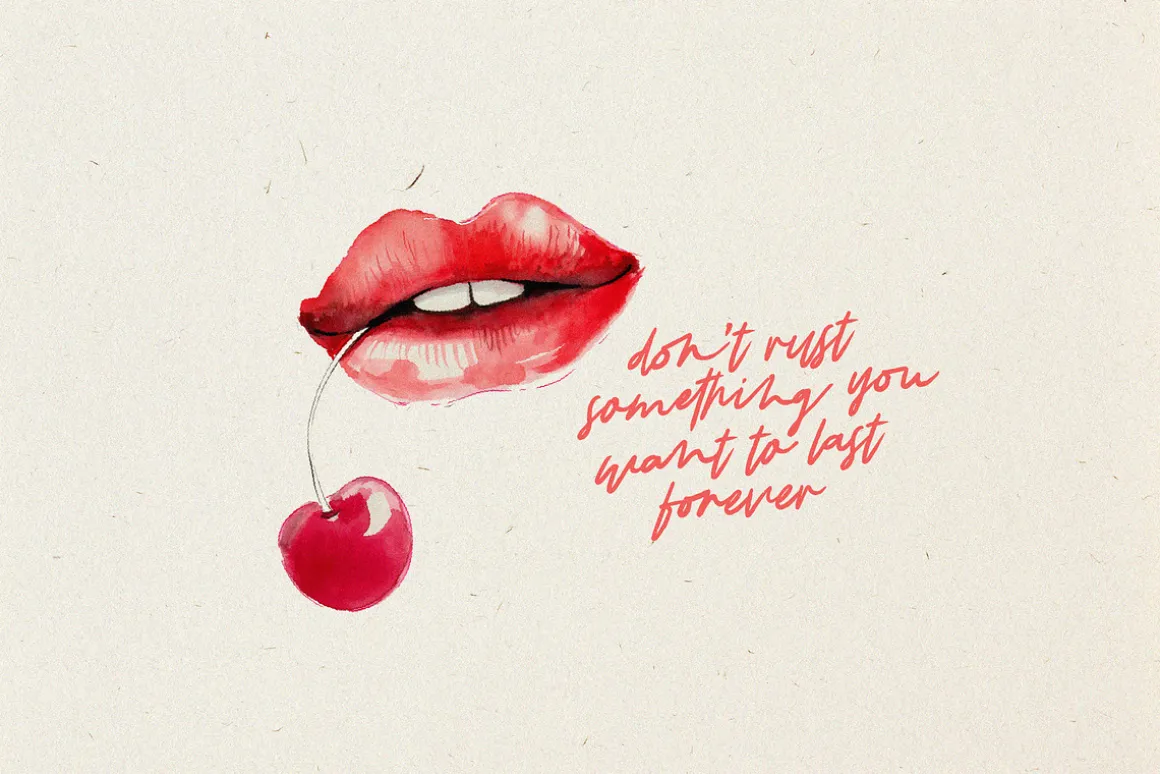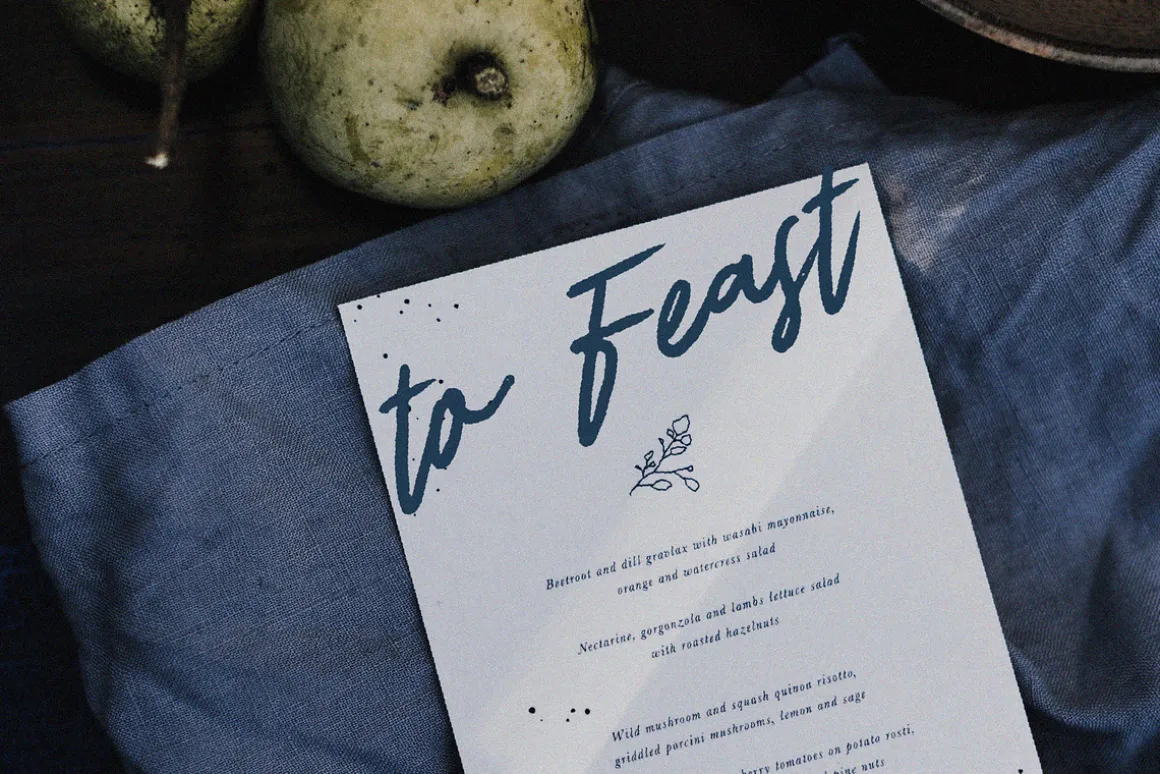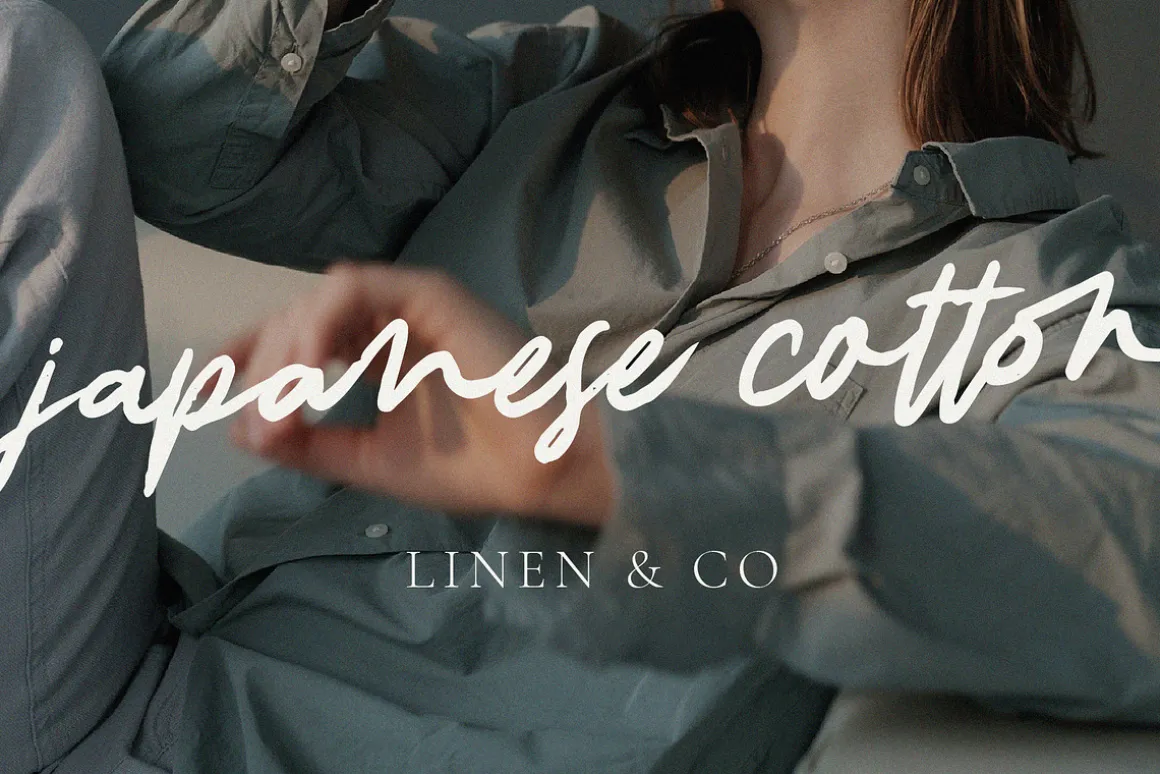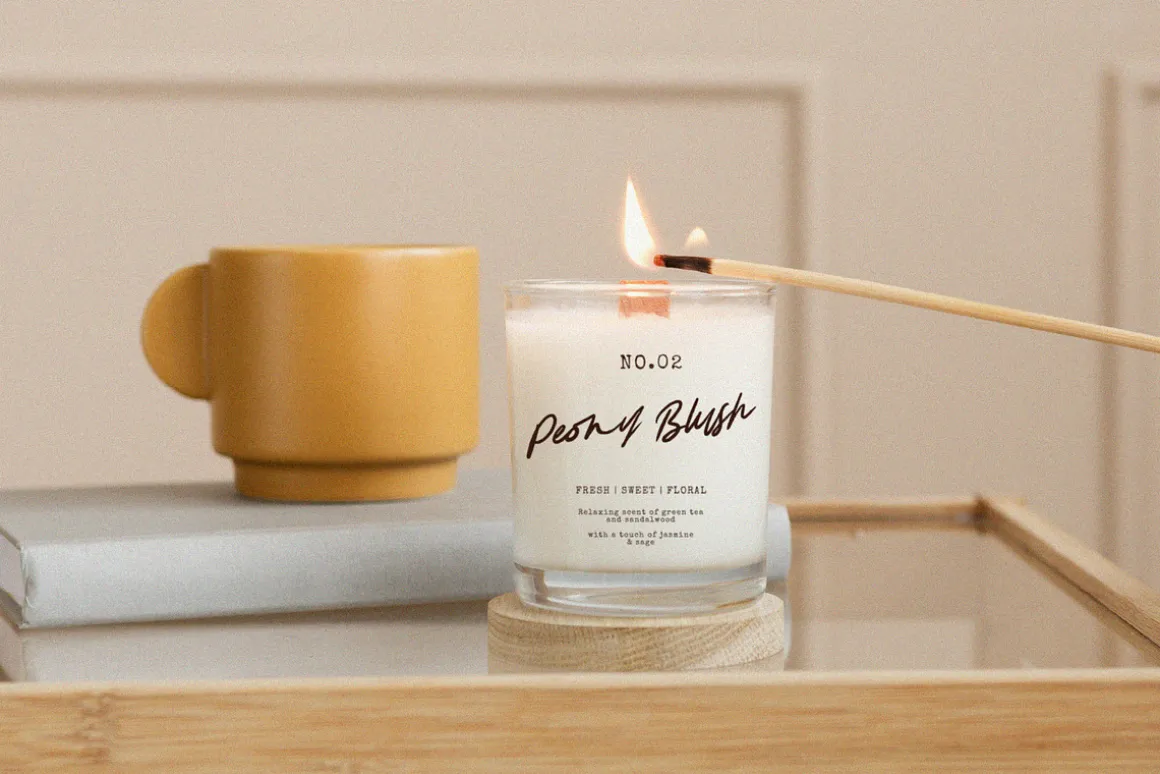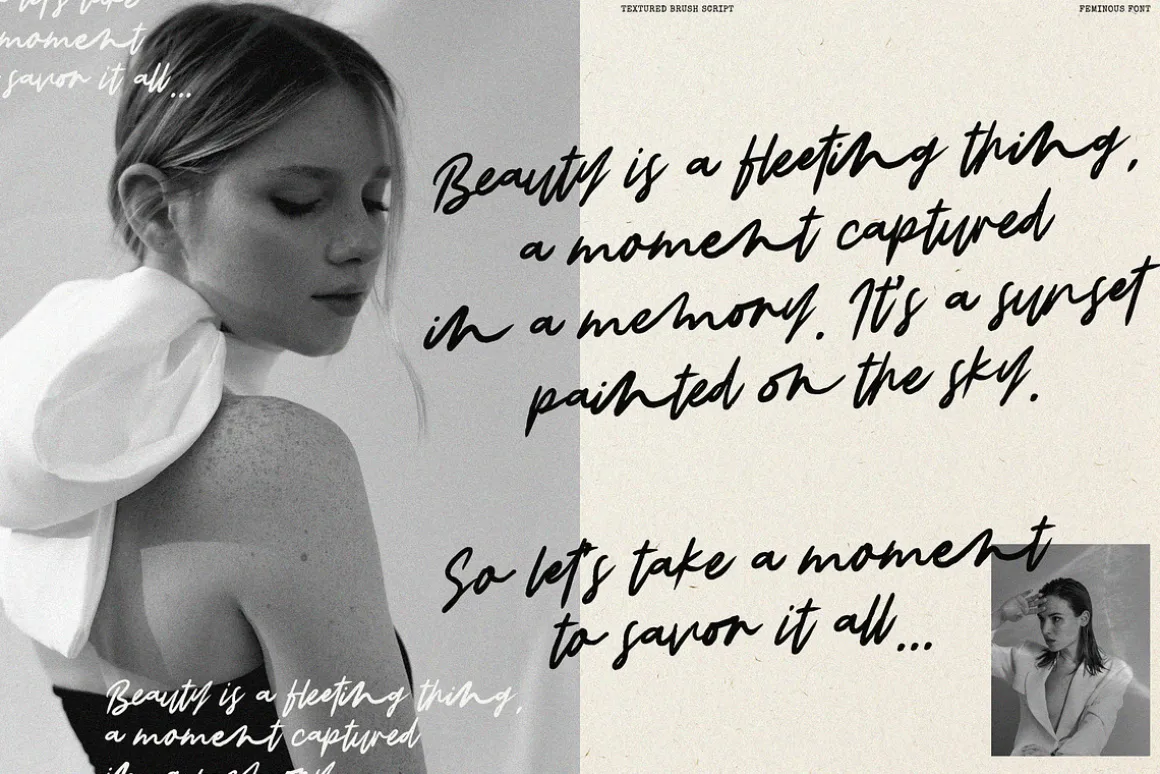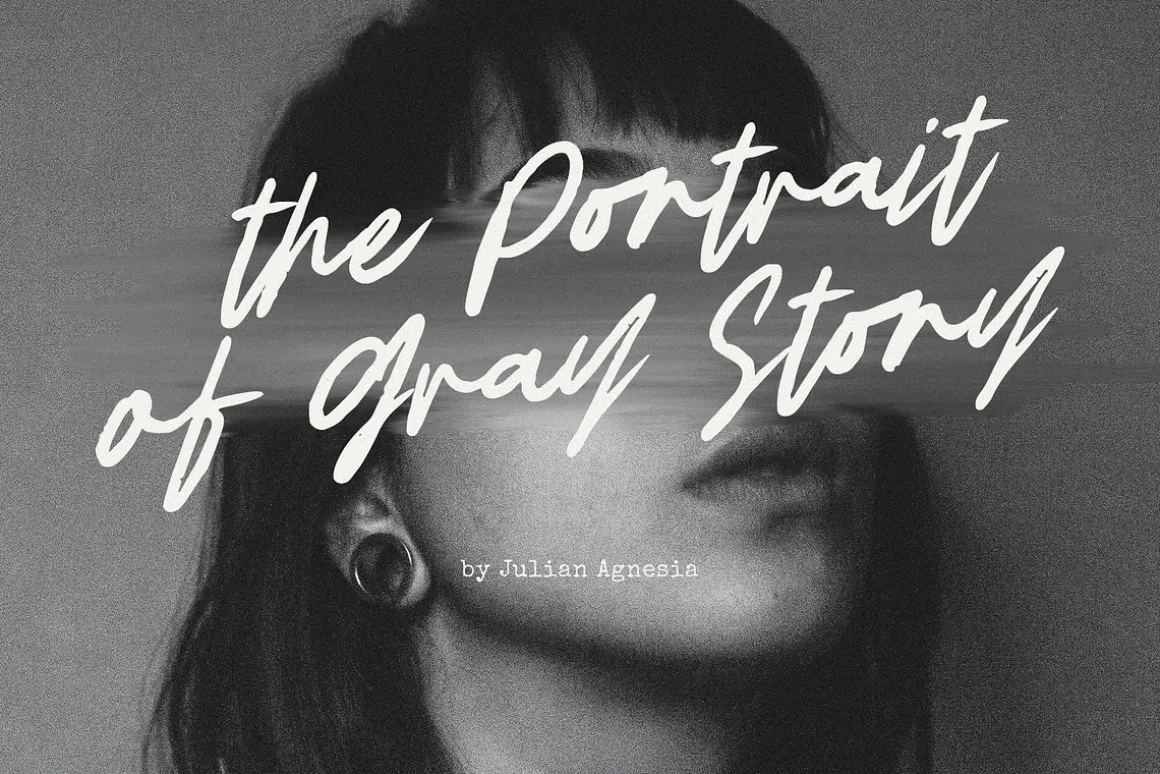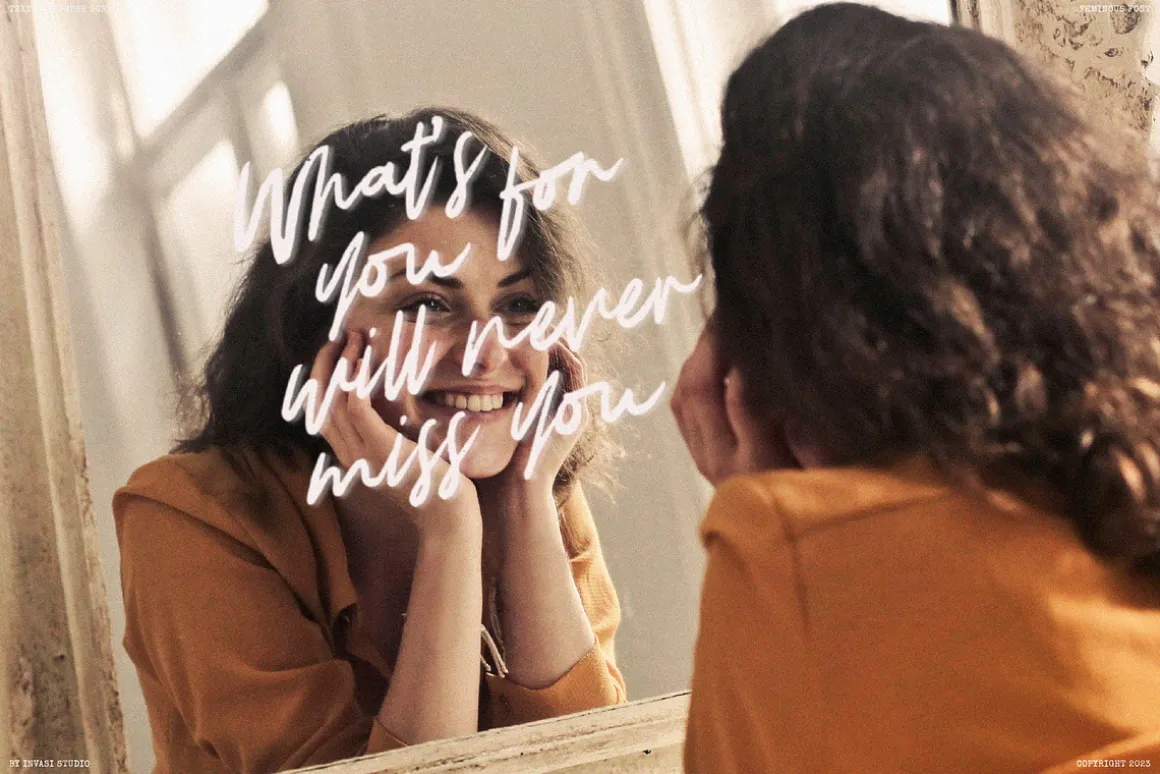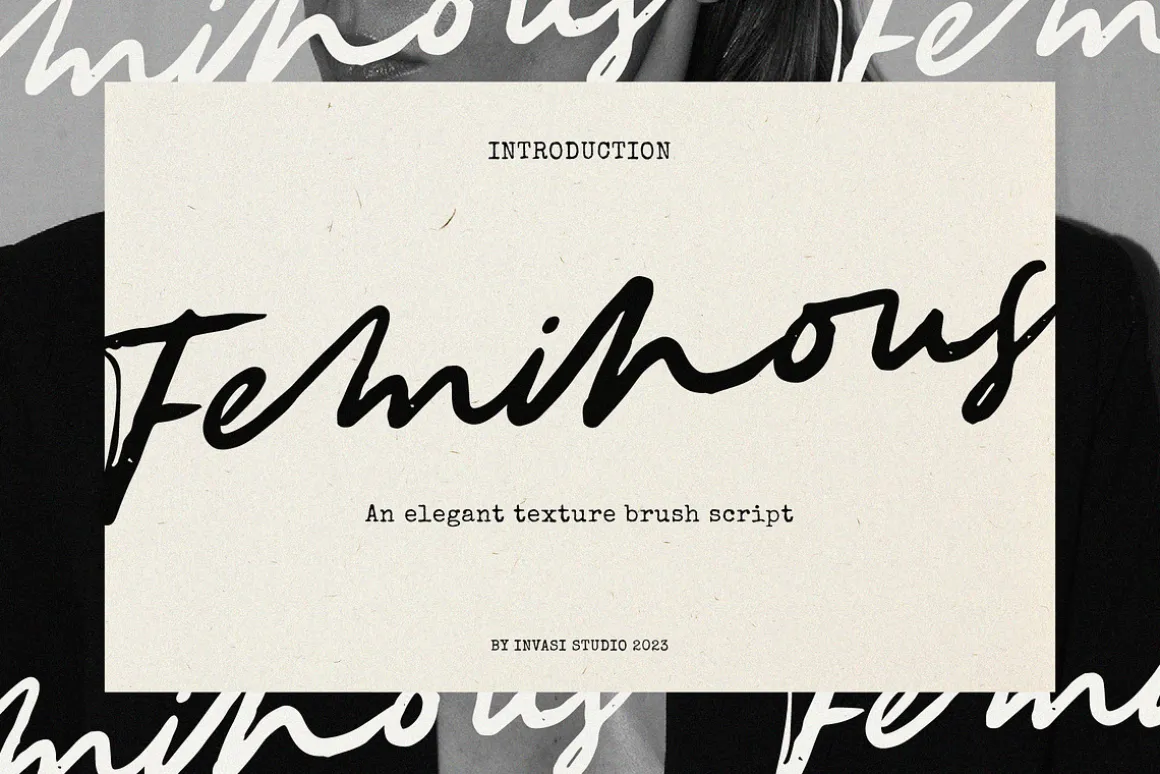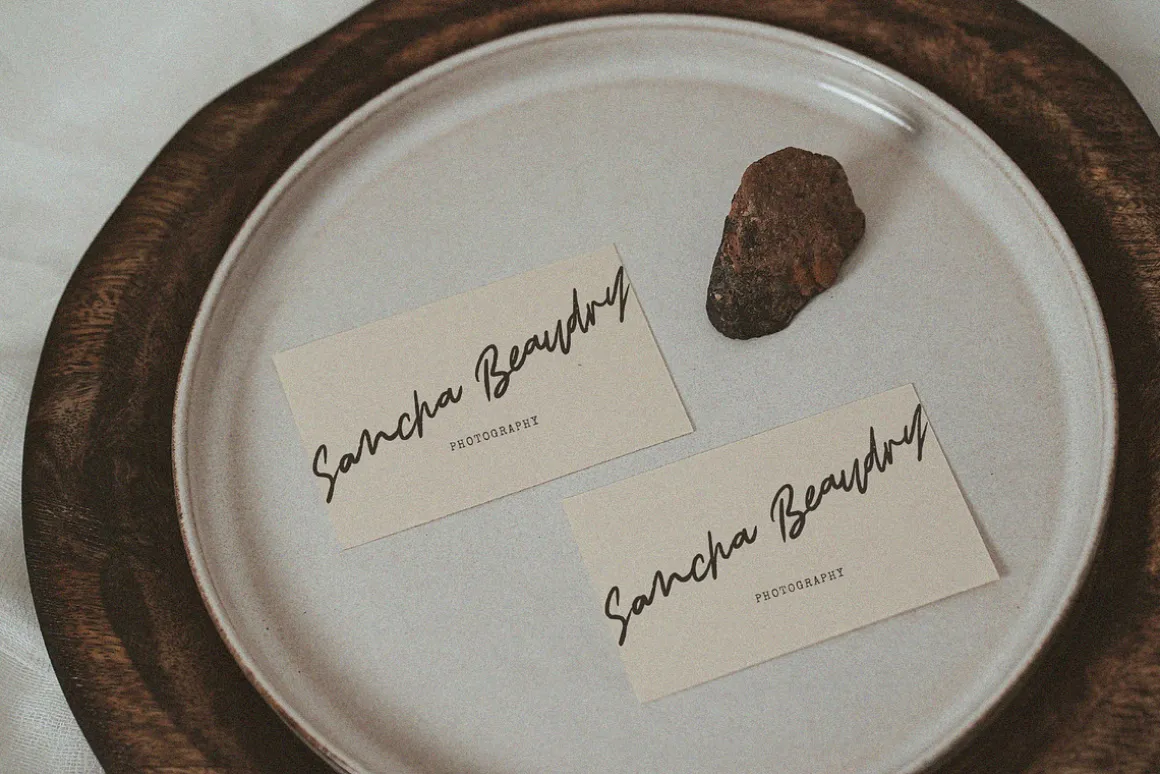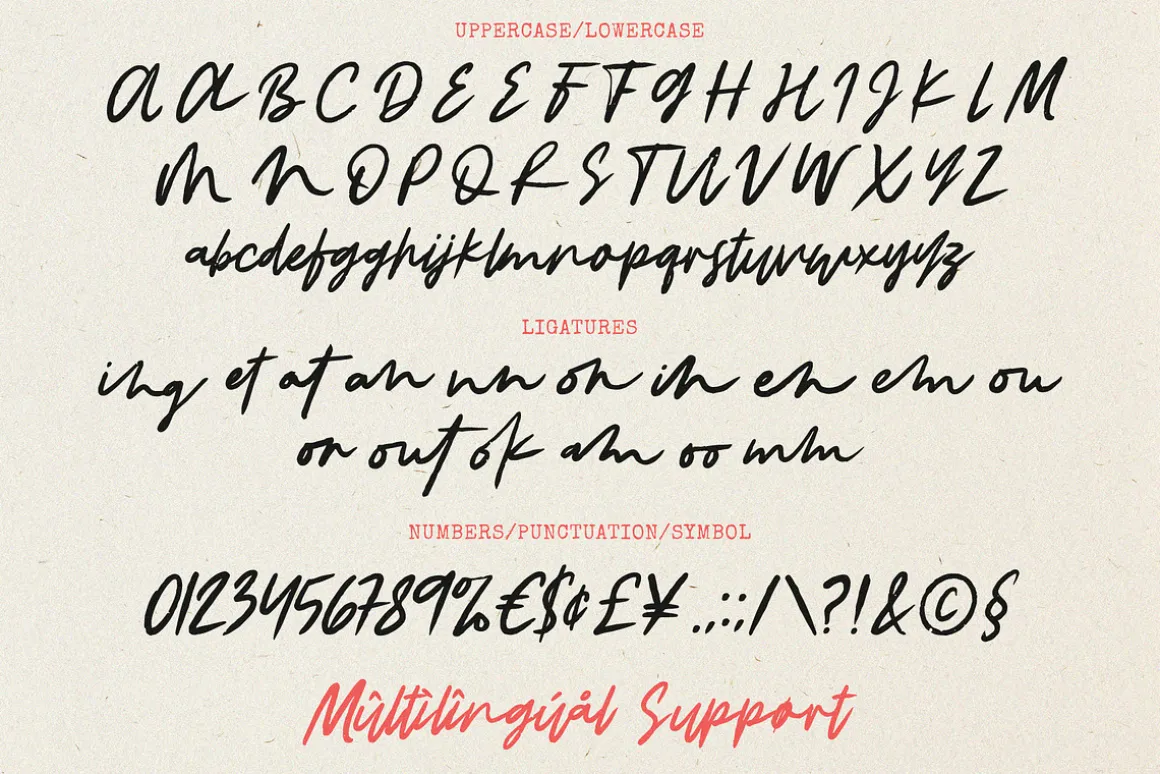
Introducing Feminous Font, the latest font that’ll give your designs a fresh and fun twist! This brush script font has got the perfect blend of sophistication and playfulness, making it the perfect choice for all your creative projects.
The brush script style gives Feminous Font a unique, hand-drawn look that sets it apart from the crowd. Its elegant texture adds a touch of class, while the playful and youthful vibe will keep your designs fresh and fun. Whether you’re designing logos, social media posts, invitations, or anything else, this font will bring the perfect amount of style to your work.
So say goodbye to boring and generic fonts and hello to Feminous Font! This font is versatile, easy to use, and perfect for any project that needs a youthful and sophisticated touch. Get ready to add some spark to your designs with this fun and playful brush script font!
- Total 213 Glyph
- Uppercase & Lowercase
- Numerals & Punctuation
- Ligatures
- Multilanguage Supports 60+ Latin-based languages